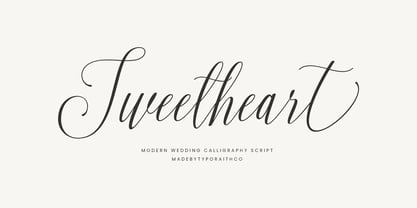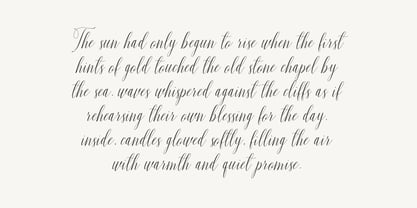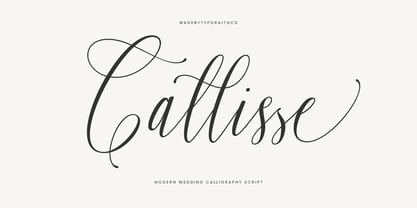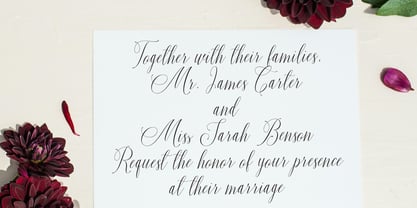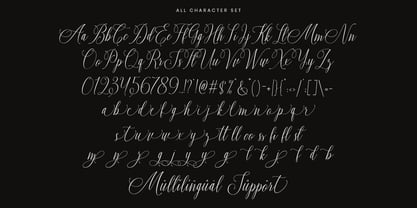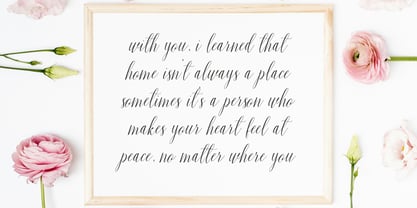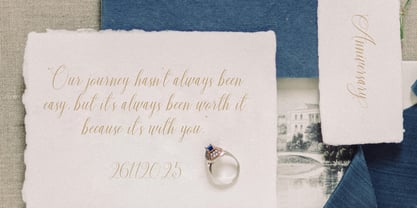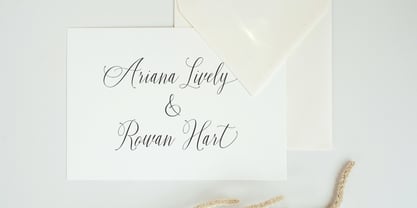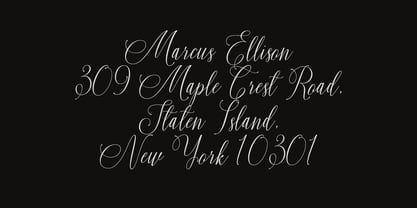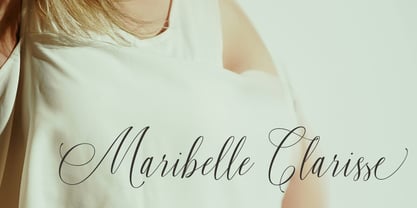
Callisse
The Callisse Font Family was designed by Rendy Riyananda and published by Typoraith Co. Callisse contains 1 styles. More about this family
Callisse is a luxurious and elegant modern script font, crafted to bring a romantic and sophisticated feel to any design. With graceful strokes, flowing curves, and beautifully refined letterforms, this typeface offers a premium look ideal for wedding stationery and upscale design projects.
Whether you’re a designer, small business owner, or bride-to-be, Callisse adds timeless charm and visual beauty to every creation.
Perfect for:
- Wedding invitations & save the dates
- Logos & branding
- Elegant quotes & wall art
- Greeting cards, stationery, and planners
- Product packaging & labels
- Social media designs & photography watermarks
- Alternates & Ligatures
Make your designs unforgettable with this romantic, graceful script font. Perfect for creating meaningful, high-end visuals that stand out.